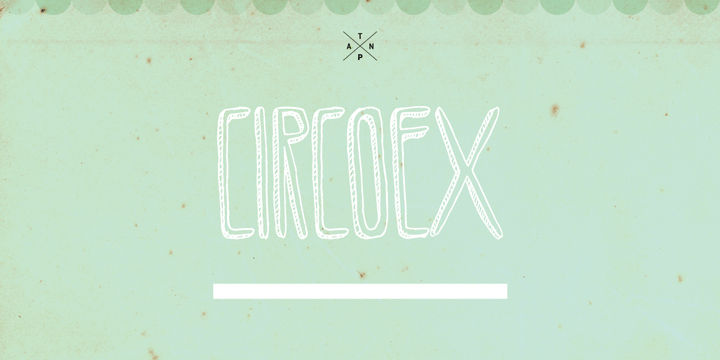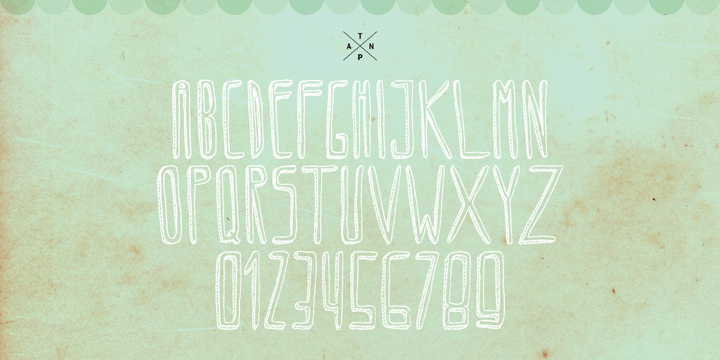
Circoex
Buy NowCircoex is a playful display font with a hand-drawn feel, combining a tall, narrow structure with monoline strokes and an outlined look. Its quirky, irregular shapes give it a casual, cartoon-inspired personality that feels lively, offbeat, and full of motion.
That expressive style makes it a strong fit for fun branding, posters, packaging, social graphics, and other decorative display work where you want lettering to feel informal and character-driven. The condensed proportions help it stand out without taking up too much space, while the doodled construction keeps the overall tone relaxed and approachable.